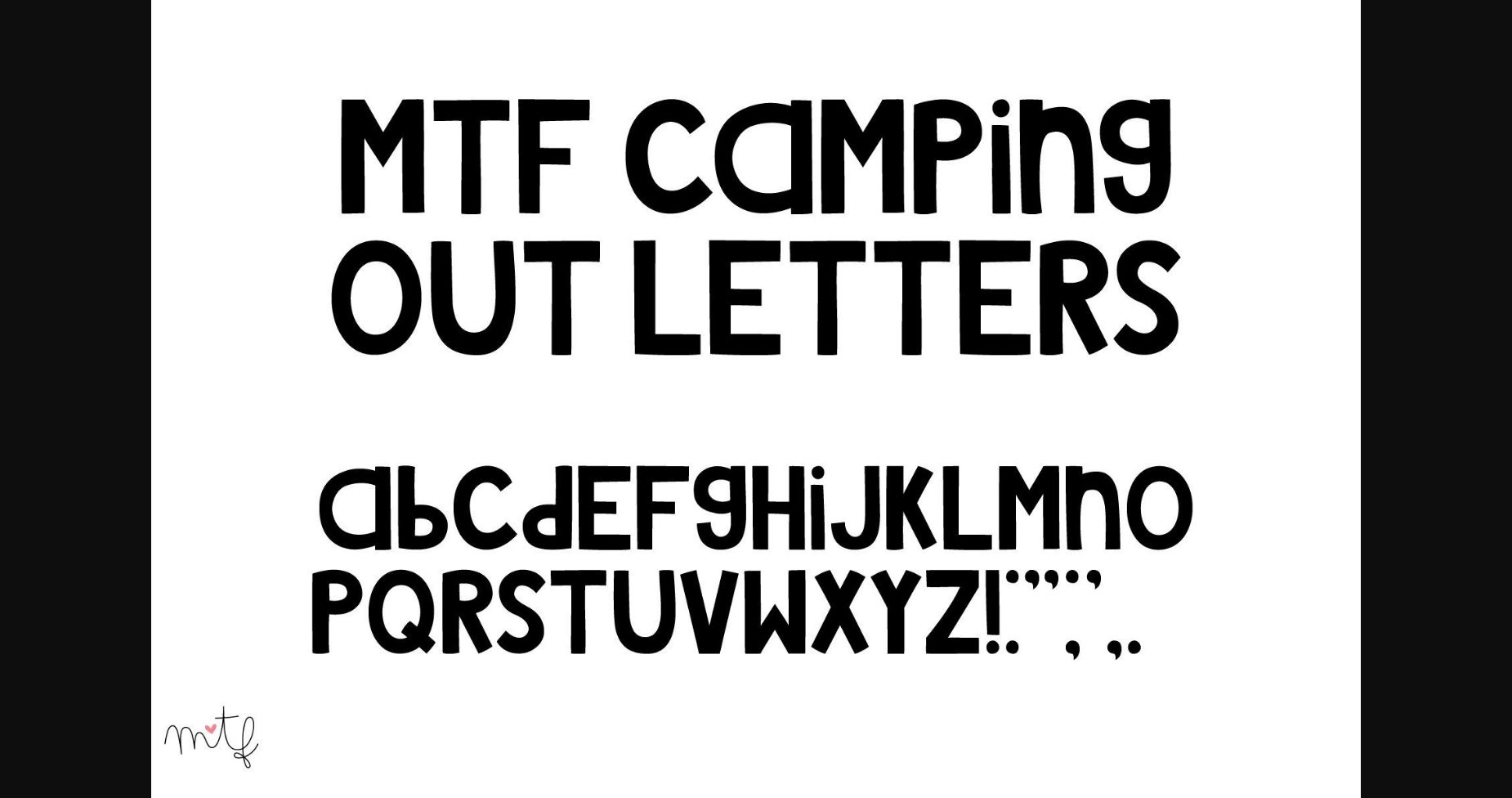
Camping out Letters Font
About Camping out Letters Font
Camping Out Letters is probably the friendliest sans serif font out there. Its bouncy characters will act like a mood-lifter and will surprise you with fantastic legibility. So do yourself a favor, and grab this gorgeous font!